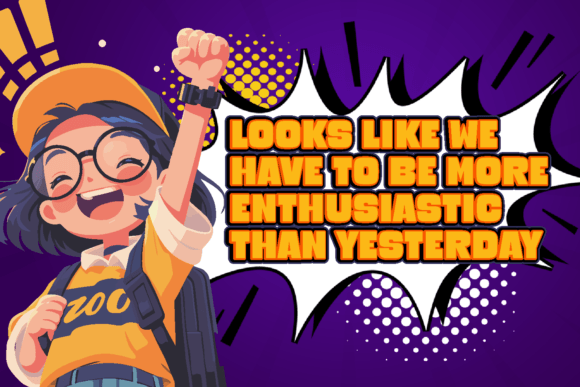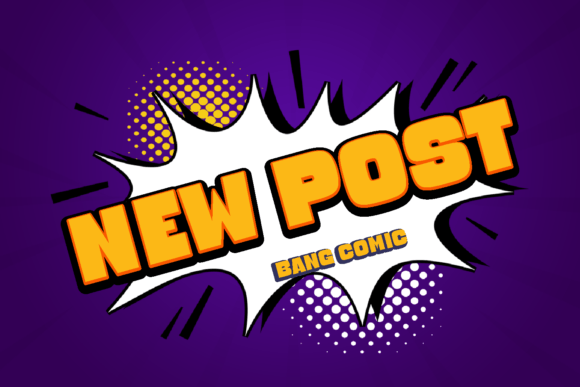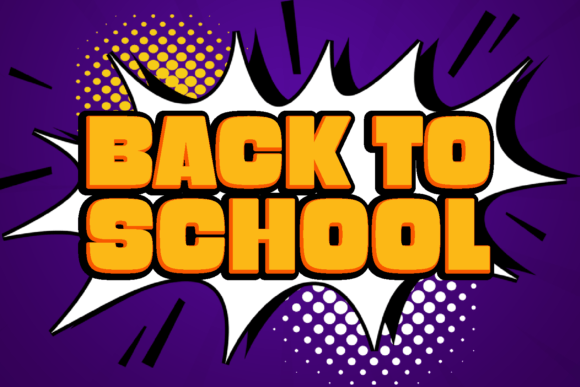
Introduction to Smooth Comics Font
Have you ever found yourself scrolling through design inspiration boards, searching for the perfect font to bring a touch of whimsy to your next creative project? I know I have. And that’s exactly how I stumbled upon the delightful Smooth Comics Font. This charming font is more than just a design element – it’s a key to unlocking a world of high-quality, light-hearted designs that capture the hearts of audiences of all ages.
As a valuable resource for designers, the Smooth Comics Font is an absolute gem. With its transparent background and free download option, it’s the perfect addition to any design project that requires a touch of fun and playfulness. From children’s materials to toy packaging, this font is sure to bring a smile to everyone’s face.
Key Features of Smooth Comics Font
- High-quality design resource ideal for creative projects, offering a smooth and professional look.
- Comes with a transparent background, allowing for easy customization and integration with other design elements.
- Includes a wide range of characters, including uppercase and lowercase letters, numbers, and punctuation marks.
- Unique characteristics include its clean and minimalist design, making it perfect for comic books, graphic novels, and other creative projects.
Honest Review: Smooth Comics Font
I recently had the chance to work with the Smooth Comics Font, and I must say, it’s a fantastic addition to any design project. The font is incredibly versatile, making it perfect for a wide range of creative projects.
- ✨ The font is incredibly smooth and easy to read, making it perfect for comic books, graphic novels, and other types of digital comics.
- ✨ The font is highly customizable, allowing designers to adjust the spacing, size, and color to suit their needs.
- ✨ The font has a transparent background, making it easy to place over any image or design.
- ⚠️ The font may not be suitable for formal or professional projects, as it has a more casual and playful feel.
Overall, I’m very impressed with the Smooth Comics Font. It’s a high-quality design resource that’s perfect for designers working on comic book-style projects. The font is easy to use, highly customizable, and available for free download. I highly recommend it to anyone looking for a great font for their creative project.
The Smooth Comics Font is a high-quality design resource ideal for creative projects that require a unique and engaging visual style. With its smooth lines and transparent background, this font is perfect for comic book-inspired designs, illustrations, and graphics.
For best results, use the Smooth Comics Font in conjunction with bold lines and vibrant colors to create a dynamic and eye-catching design.
Experiment with different font sizes and styles to add depth and visual interest to your design.
Common Use Cases for Smooth Comics Font
The Smooth Comics Font is ideal for:
Comic book-inspired designs and illustrations
Graphic novels and manga-style art
Children’s book illustrations and graphics